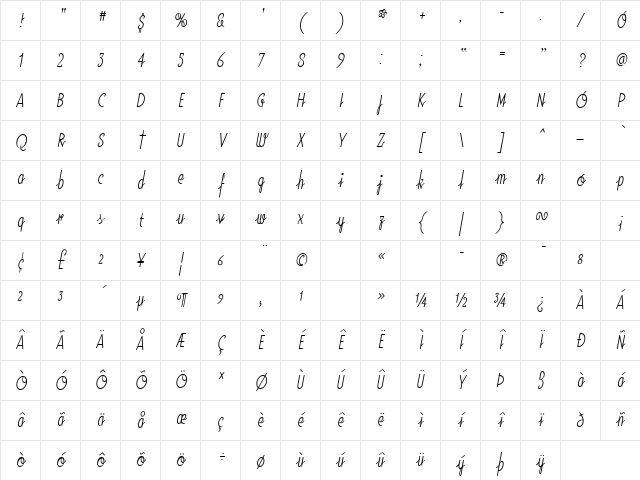
Soda Medium
Soda Family
Soda Medium
Design Context for Soda
Soda is a composed and adaptable typeface that performs quietly and consistently across a wide range of design contexts.